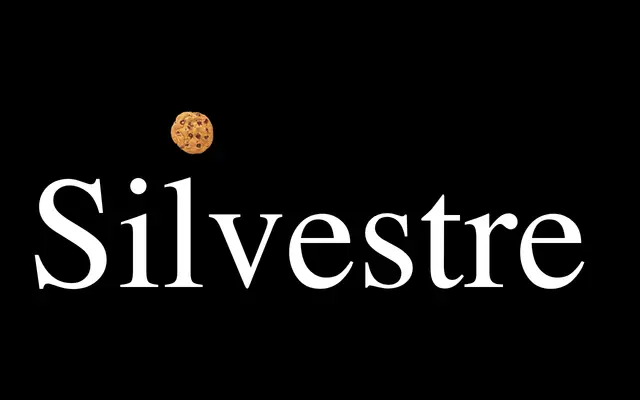
RST Silvestre
A serif typeface from Reset Type Studio with weight and optical size axes, suggesting a considered approach to text use.
RST Silvestre appears to offer variable or discrete weight and optical size controls, pointing to a typeface built for demanding text environments. The presence of optical size variants suggests attention to legibility across different scales. Little additional copy was available from the page to elaborate on its design origins or intended use cases.
The name and foundry context suggest a classical serif design; insufficient page data to confirm subcategory with certainty, so transitional serif is used as a reasonable default for a studio-grade text serif.